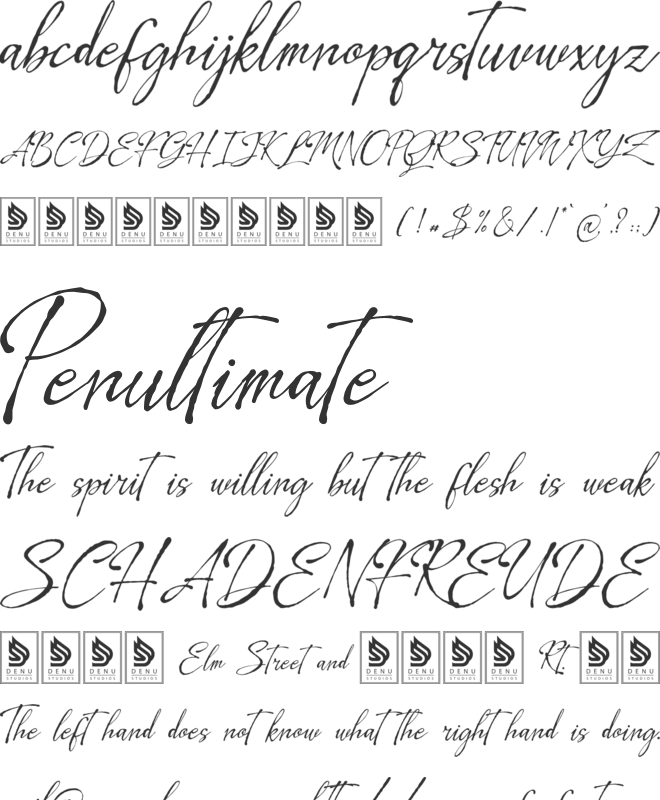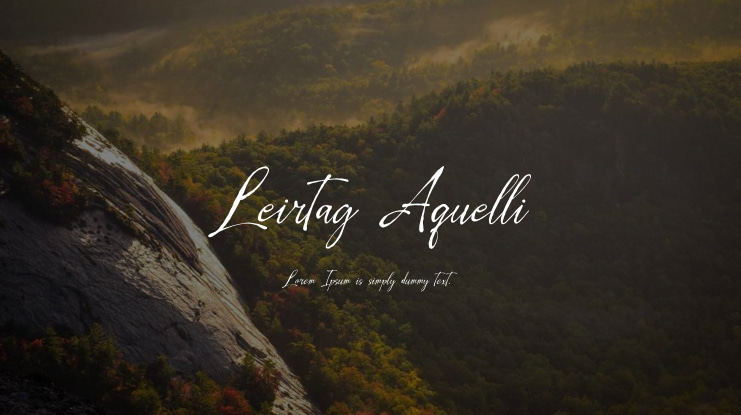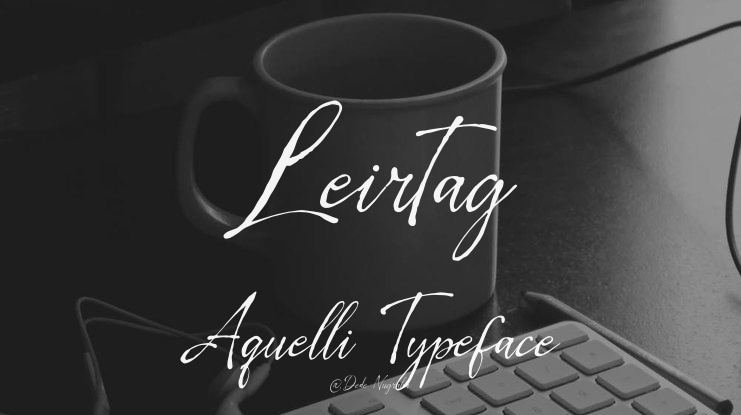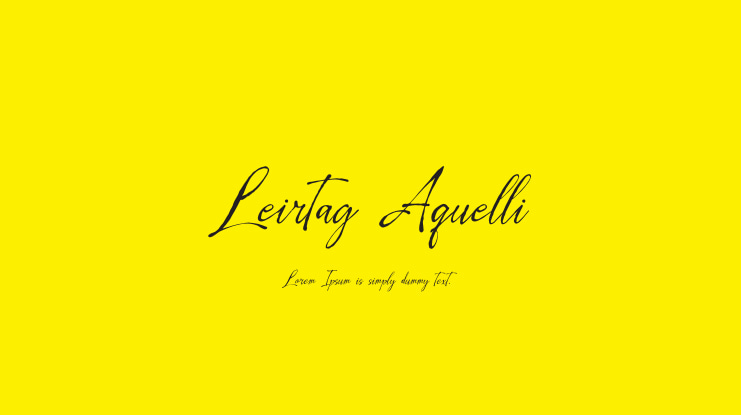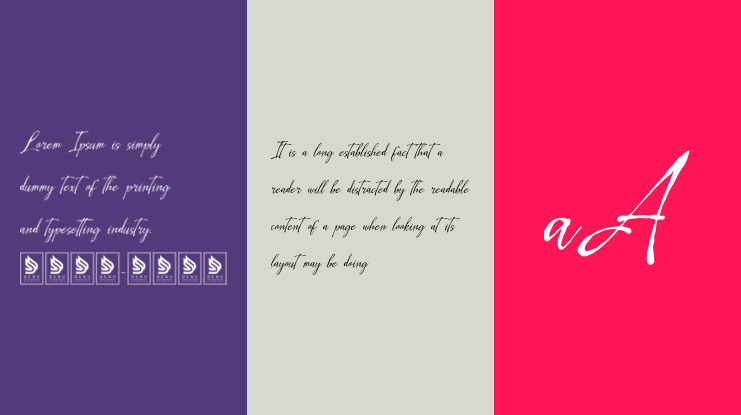
**Leirtag Aquelli | Vintage Script Font**
Leirtag Aquelli is a versatile vintage script font perfect for various projects such as logos, branding, homeware designs, product packaging, mugs, quotes, posters, shopping bags, t-shirts, book covers, business cards, invitation and greeting cards, labels, photography, watermarks, special events, and any other project needing a vintage script touch.